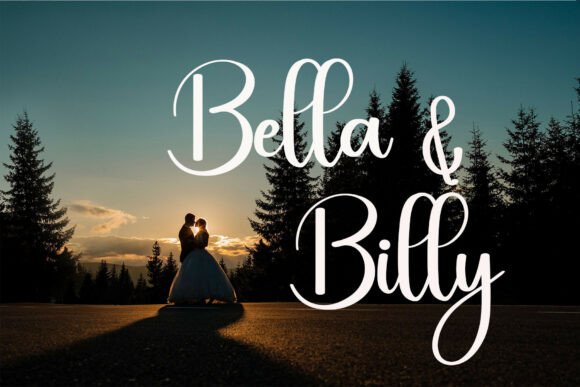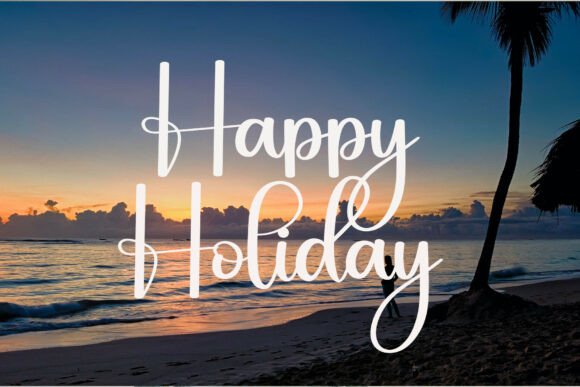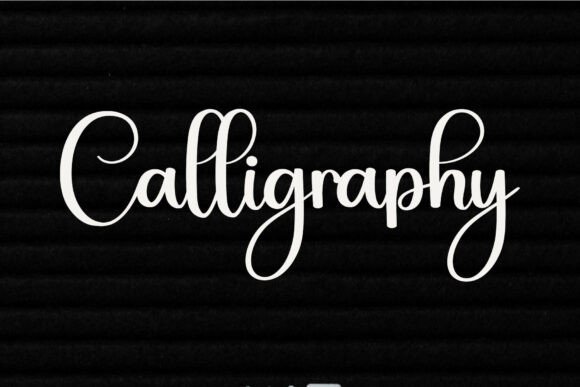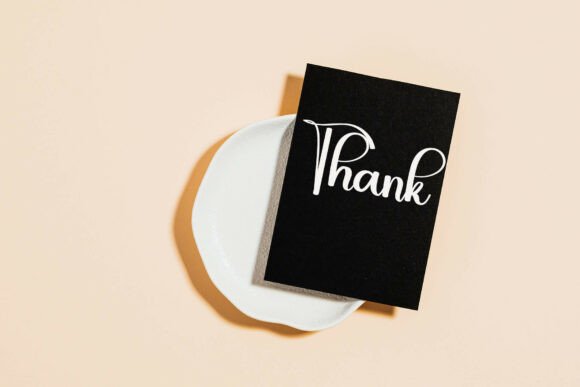
The Perfect Script for Your Masterpiece
There’s nothing quite like the feeling of bringing an idea to life on paper. The scratch of the pen on the page, the flow of the ink as it takes shape – it’s a moment of pure creative joy. And for designers, finding the right font to match that vision can be the key to making it all come together. That’s where the Autography Font comes in, a stylish handwritten font that captures the essence of timeless classic calligraphy.
With its elegant, refined form, Autography Font adds a touch of sophistication to any design project. Whether you’re working on a logo, a brochure, or a website, this versatile font is sure to impress. And as a designer, you know how valuable it is to have a font that can adapt to different needs and styles. Autography Font is that perfect script, waiting to elevate your creations to new heights.
Autography Font Key Features
- Unique Characteristics: Autography Font features a unique, handwritten style with subtle imperfections, giving it a personal and emotive feel. The font is ideal for use in creative projects, such as invitations, posters, and social media graphics.
Review of Autography Font
I recently had the chance to work with the Autography font, and I must say it’s a unique and stylish addition to any design project. Here are some of my observations.
- The font’s elegant and sophisticated feel makes it perfect for formal or luxury branding projects.
- The wide range of weights and styles allows for a lot of creative freedom and versatility.
- The font’s readability is excellent, even at small sizes.
- The font is well-suited for both digital and print applications.
- The font may be too ornate for some projects, which could make it difficult to read at a glance.
- The font’s complexity may make it challenging to pair with other fonts or design elements.
- The font may not be suitable for projects that require a more minimalist or modern aesthetic.
Overall, I think the Autography font is a great choice for designers who want to add a touch of elegance and sophistication to their projects. While it may have some limitations, I believe the benefits far outweigh the drawbacks. With the right project and design approach, the Autography font can be a real showstopper.
Autography Font: A Practical Application Guide
For a more authentic look, pair Autography Font with a distressed or handwritten background.
For a more authentic look, experiment with layer blending modes and textures.
For a more authentic look, pair Autography Font with a subtle background texture or image.
Autography Font is ideal for:
1. Creative quotes and sayings.
2. Handwritten-style invitations and event graphics.
3. Distressed or vintage-style branding and marketing materials.